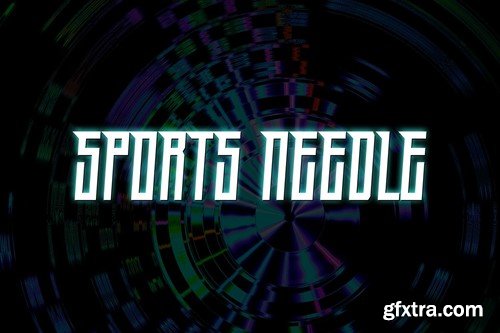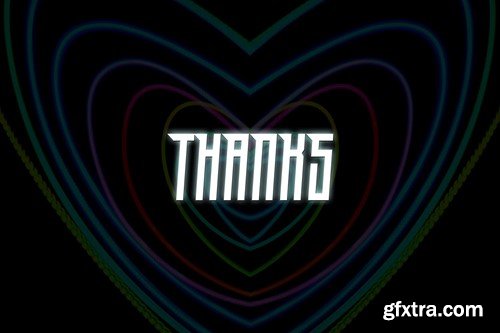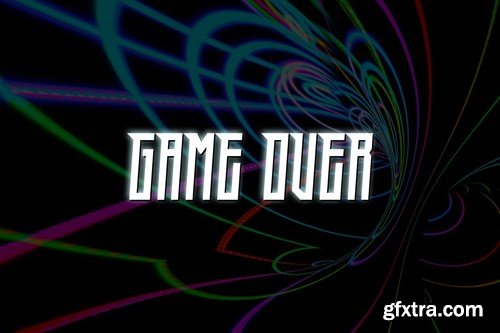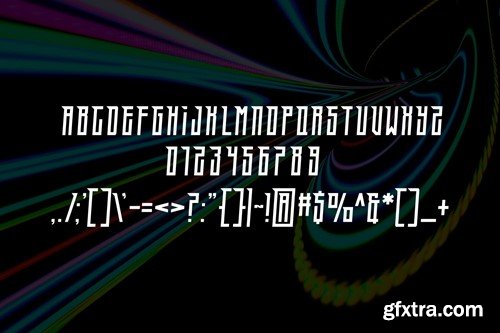
Sports Needle Font ZSW9X2J
Sports Needle Font
Introducing our new product Sports Needle Font, Modern Font
Sports Needle Font is an elegant and authentic display font.